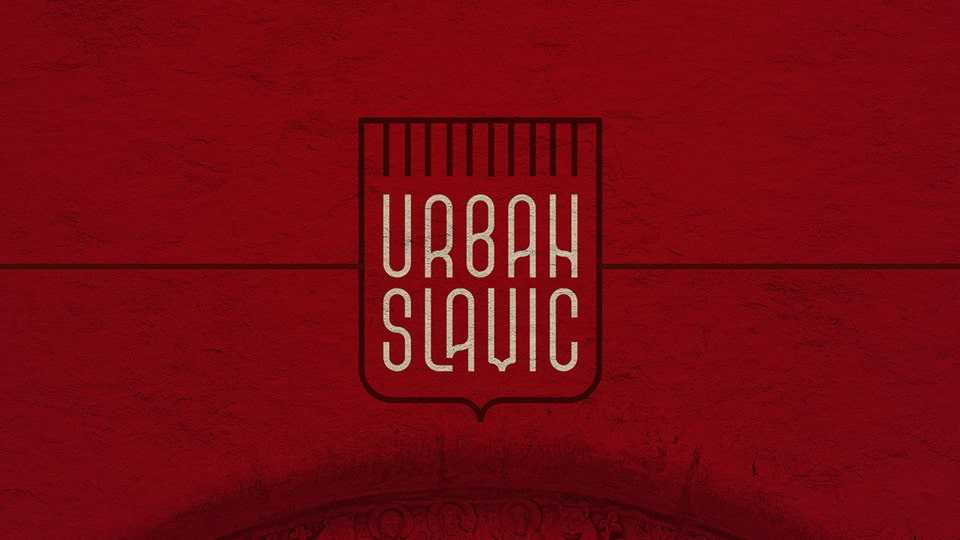
Download Urban Slavic font, a display typeface inspired by ethnic Slavonic typography combined with modern geometric minimalism. Works best at large sizes, posters, headlines or short words.